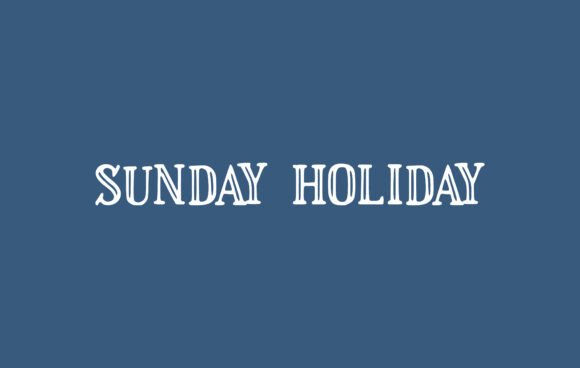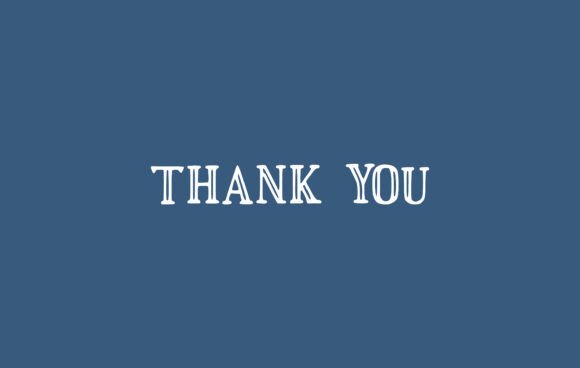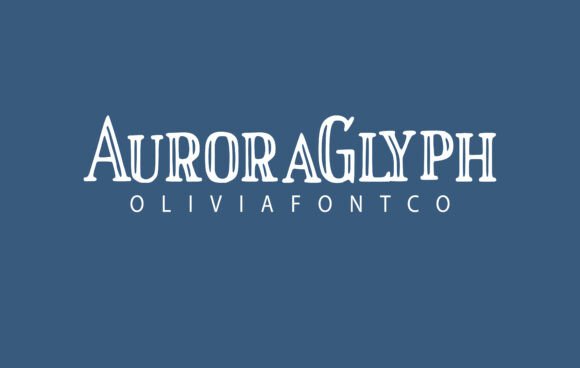
Auroraglyph Font: Elevate Your Designs with Medieval Elegance and Modern Readability
In the realm of typography, few fonts manage to strike a balance between medieval elegance and modern readability. Auroraglyph Font is one such exceptional typeface that brings a refined fantasy feel to serif lettering, making it an ideal choice for book covers, fantasy titles, and storytelling visuals. In this article, we’ll delve into the world of Auroraglyph, exploring its unique characteristics, design inspirations, and uses that can elevate your designs to new heights.
The Genesis of Auroraglyph
Auroraglyph Font is a meticulously crafted typeface that draws inspiration from the medieval period, an era renowned for its ornate and intricate lettering. The font’s creator aimed to capture the essence of this bygone era, infusing it with a modern twist to ensure readability and versatility. The result is a font that exudes elegance, sophistication, and a touch of mystique.
Auroraglyph boasts a range of distinctive features that set it apart from other serif fonts. Some of its notable characteristics include:
- Intricate Serifs: Auroraglyph’s serifs are adorned with delicate flourishes, adding an air of refinement and luxury to the font.
- Medieval-inspired Letterforms: The font’s letterforms are inspired by traditional medieval typography, with subtle variations in line width and elegant connections between letters.
- Modern Readability: Despite its medieval roots, Auroraglyph is designed with modern readability in mind, making it suitable for a wide range of applications, from body text to headlines.
Uses for Auroraglyph Font
Auroraglyph’s versatility and elegance make it an excellent choice for various design projects, including:
- Book Covers: Add a touch of sophistication and fantasy to your book covers with Auroraglyph, perfect for fiction, fantasy, and historical fiction titles.
- Fantasy Titles: Create captivating titles for your fantasy stories, games, or movies with Auroraglyph’s unique blend of medieval elegance and modern readability.
- Storytelling Visuals: Elevate your storytelling visuals, such as comics, graphic novels, or animated series, with Auroraglyph’s distinctive and eye-catching lettering.
- Branding and Packaging: Use Auroraglyph to add a touch of luxury and sophistication to your brand’s packaging, labels, or marketing materials.
Tips for Using Auroraglyph Effectively
To get the most out of Auroraglyph Font, consider the following tips:
- Pair with contrasting fonts: Combine Auroraglyph with a clean, sans-serif font to create visual interest and emphasize key information.
- Experiment with colors: Take advantage of Auroraglyph’s elegant design by pairing it with rich, bold colors that evoke a sense of luxury and fantasy.
- Pay attention to spacing: Ensure that your text is easy to read by adjusting the spacing between letters and lines to create a harmonious balance.
Auroraglyph Font is a stunning typeface that brings a refined fantasy feel to serif lettering, blending medieval elegance with modern readability. With its intricate serifs, medieval-inspired letterforms, and versatile design, Auroraglyph is an excellent choice for designers and crafters looking to elevate their projects. Whether you’re creating book covers, fantasy titles, or storytelling visuals, Auroraglyph is sure to leave a lasting impression.
Unlock the full potential of Auroraglyph Font and discover a world of creative possibilities. Explore its unique characteristics, experiment with different design applications, and experience the magic of medieval elegance meets modern readability.